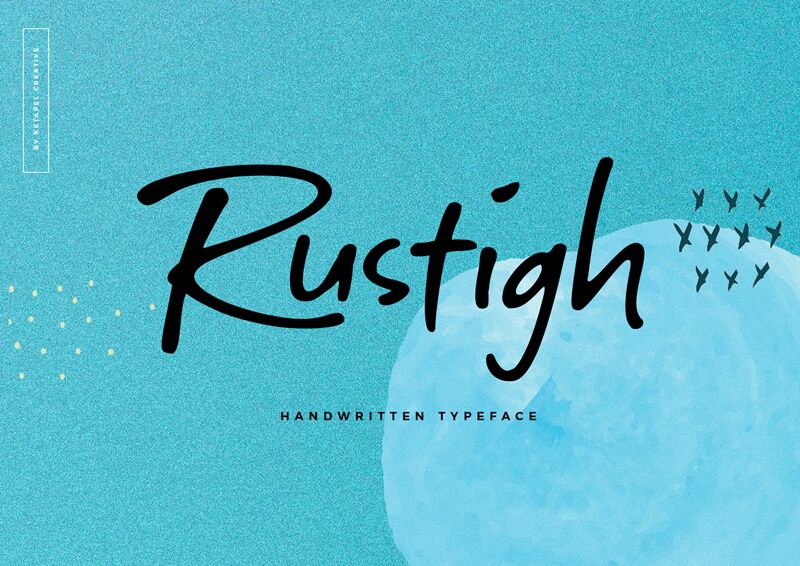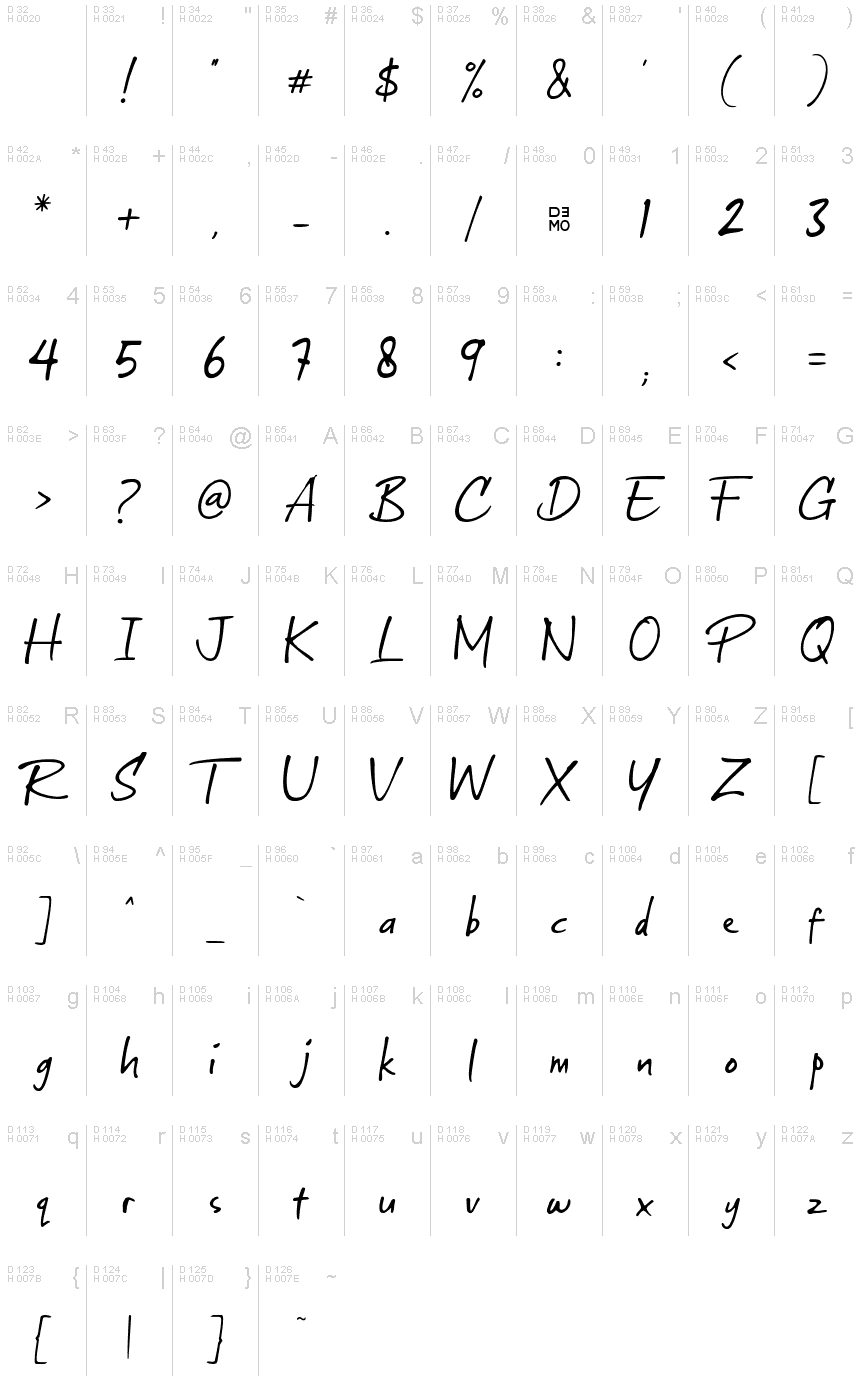
Rustigh_demo
Rustigh is a casual and unique handwritten font. Whether youre looking for fonts for Instagram or calligraphy scripts for DIY projects, this font will turn any creative idea into a true piece of art!
Ketapel Creative / Wasito Utomo